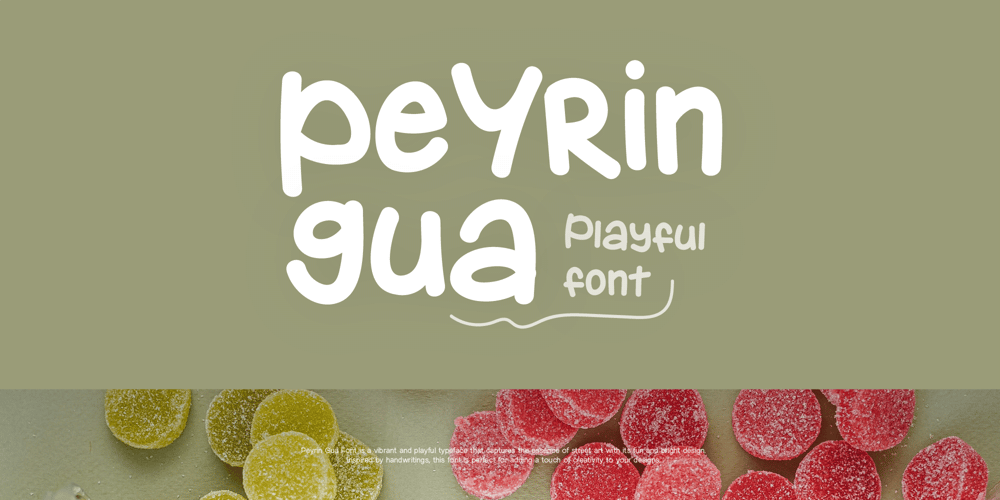
Peyrin Gua Font Family was designed by Alif Naufal Muzakki and published by Phoenix Group. Peyrin Gua contains 1 styles and family package options. Peyrin Gua Font is a vibrant and playful typeface that captures the essence of street art with its fun and bright design. Inspired by handwritings, this font is perfect for adding a touch of creativity to your designs.